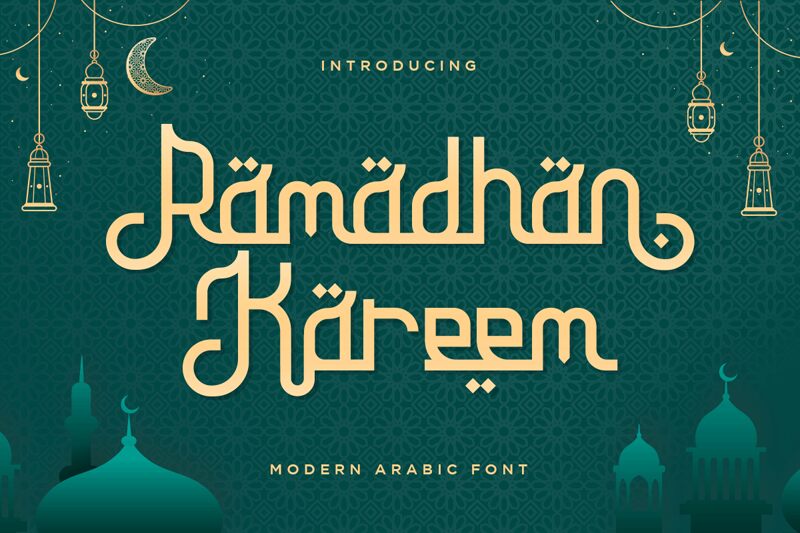
Ramadhan Kareem font by Kong Font is a free font that combines decorative elements from the Arabic language and alphabet making ornamental symbols suitable for display uses. The font is a themed font with cultural characteristics often found in more traditional typography originating from the Arabic peninsula and its surrounding countries. However, it is more than a typographic base for the Arabic alphabet that it resembles as it contains also the regular Roman alphabet. Ramadhan Kareem font can be described as structured, geometric, and straight with angular corners.
This font was created specifically for the month of fasting and it can be used for religious or educational projects, cultural, government, and historical tourist printed material, signages, banners, websites, headings, social media, books, or magazines.